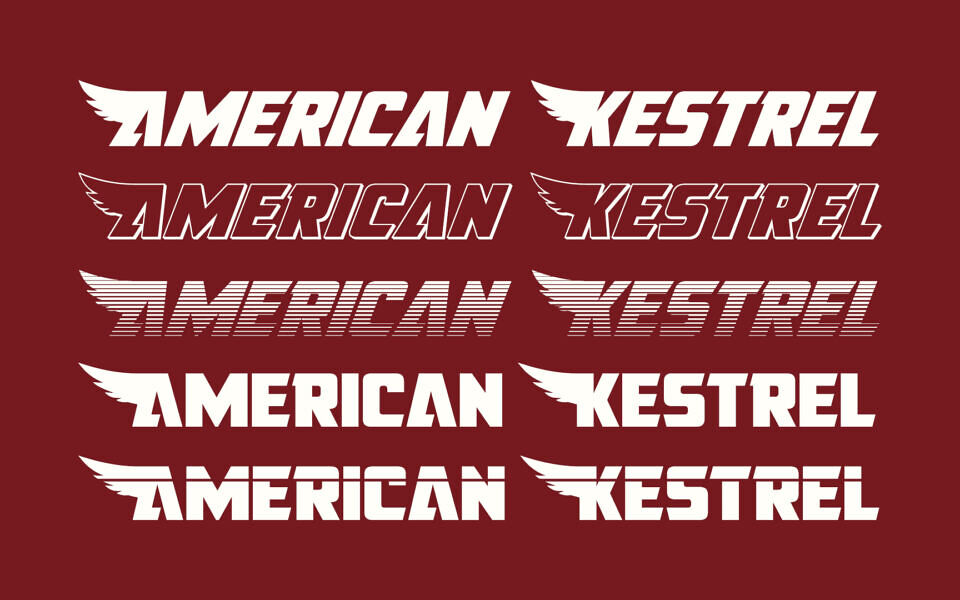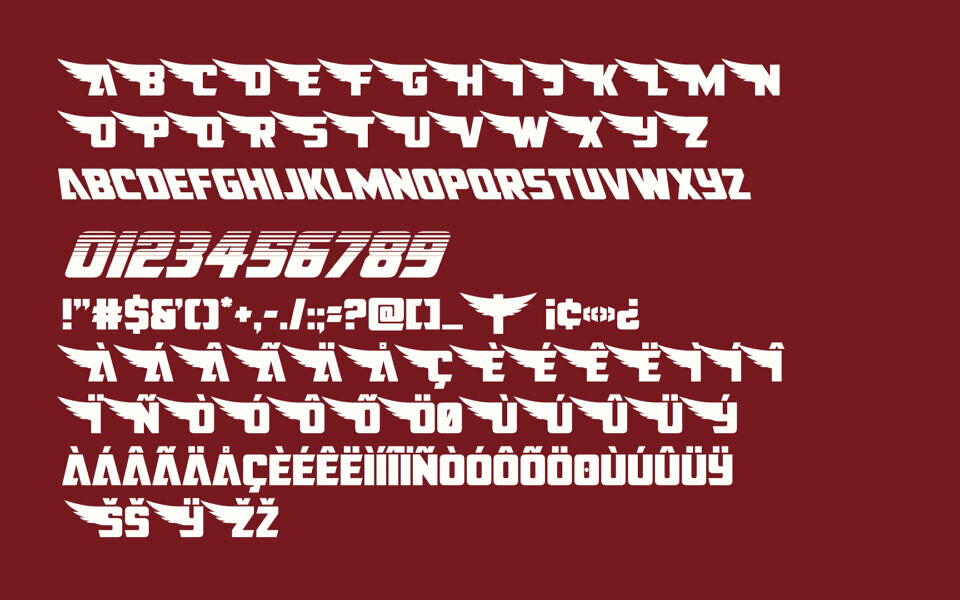
American Kestrel is a bold, techno-style display font by Iconian Fonts, featuring sharp angular forms and distinctive wing-like extensions on uppercase letters that evoke speed and motion. Its futuristic, high-impact aesthetic suits sports, automotive, and action-themed designs.
The family includes 17 styles: Regular, Semi-Straight, Leftalic, Italic, Laser, Straight Laser, Half, Straight Half, Gradient, Straight Gradient, 3D, Straight 3D, Condensed, Straight Condensed, Expanded, and Straight Expanded.